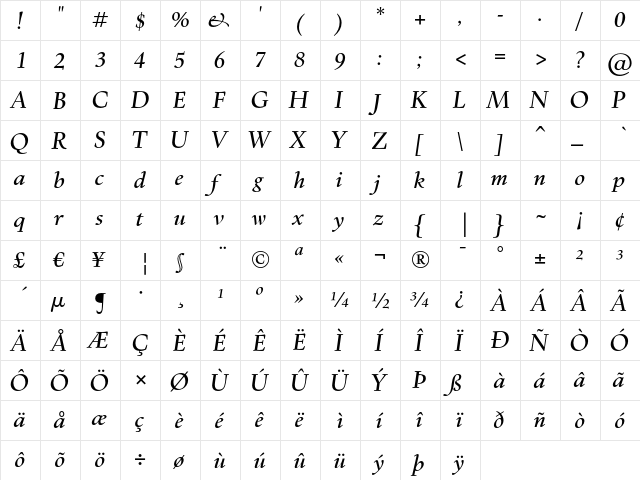
Kennedy Medium Italic Font Preview
Kennedy Medium Italic
Kennedy Medium Italic Font Details
Design Context for Kennedy Typeface
Kennedy offers clean, dependable letterforms without strong stylistic allegiance, making it a practical choice for designers who need flexibility. The dynamic lean of this cut emphasises speed and emphasis in any layout.
Pro Tip: Use Kennedy for emphasis, pull quotes, and subheadings where its slanted energy can add rhythm to the layout.